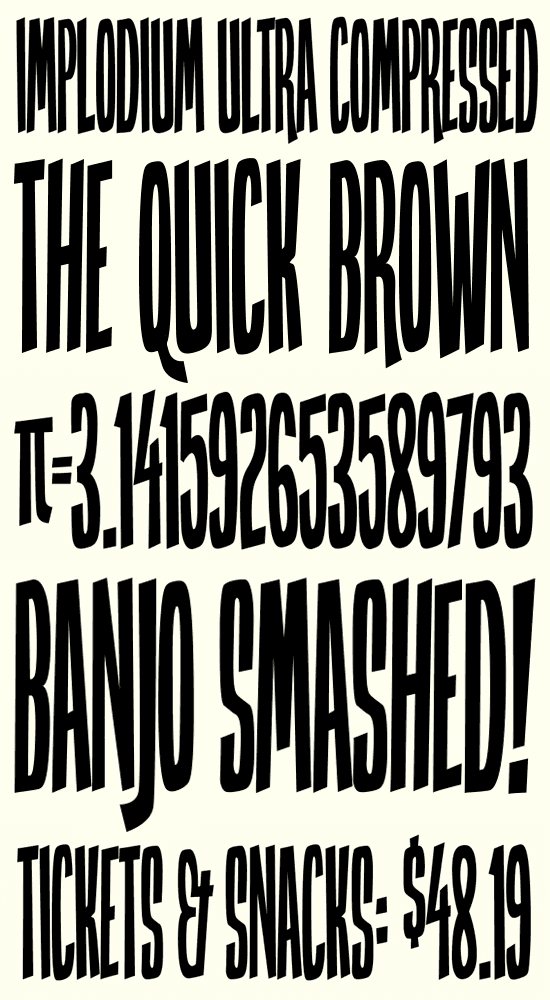
Implodium Ultra Compressed
Hey, so I've had a love for typography for years, but have just started getting into designing fonts. I bought a copy of TypeTool for Christmas and I've been itching to get started. My first font idea came from a CD cover I designed for a Christmas present this year. I wanted to have the word "SMASH" in a cartoony, ultra-condensed font that would take up the whole cover, both horizontally and vertically. I couldn't find anything out there that was compressed enough for this job, so I ended up drawing my own type for it in Illustrator. When I started thinking about designing my first font, I figured if I couldn't find anything like this, maybe there will be someone else looking for a font like this to fill a design need so I thought I'd flesh it out and see how it took. I'm quite surprised with how much I'm liking it.
However, I wanted to post it here to see what some more experienced type designers have to say. As I said, I'm a beginner, this is my first font, but I would like it to be very professional. I'm in the midst of designing all of the standard glyphs, and I'm considering putting it up for sale on MyFonts, although I'm not sure if it's of good enough quality. There's a few characters I think might need a bit of tweaking, but I thought I'd see what everyone here thinks. So, what do you all think of it? I'm eager to hear your input.
This looks pretty well designed. If you could post a pdf it would help to see how well crafted the contours are.
My only comments on this would be that the C leaves a large white space on its right side; I think the arms could extend further to even the colour out. And the M gets very cloggy and dark; perhaps you could trap the counters a bit?
Thanks! I'm linking below to a PDF that you can check out. I still have some overlapping shapes that I have to merge together, but it should give you a good idea of my contours. No idea if they're good or bad, so let me know. I know there's a few characters that are a little rough that I plan on doing a bit of tweaking on (the "S" comes to mind, and I'm not sure I like the G.). I haven't had the time to work on your suggestions for the C and the M yet, but they do make sense and sound like a very good idea. Thanks so much for the input! Here's a link to the PDF:
I think this is really good stuff and outstanding for a first font.
You may want to try making the counters extend further into the M instead of or in addition to trapping the angles. Notice how on your W the highest part of the bottom counter goes higher than the lowest part of the top counters? That prevents the situation in your M where the black goes the full width of the letter.
P looks weak to me.
I wonder if there's some unhappy tension between the asymmetry of the S, with its low spine, and the halfway structure of letters like BHE.
On some glyphs the angles you use start to take on a three-dimensional illusion that is distracting. It's mostly the characters that have a horizontal at the top or bottom - I first noticed it on the two and five, but it also happens on the 7 and E. Did you or would you think about not using the same angle that you use for the ends of the strokes on those "horizontals"?
Is the flare on the R's leg a little overdone? I'm not sure.
Wow. Thanks so much for this feedback, it's great! I did a bit of work on a few more of the characters tonight, taking most of your suggestions into account. Below is a sample of the font before the edit on top and after the edit underneath.
The characters I made edits to are the C, E (less "3D"), P, M, L (slightly thinned and less "3D"), G and R.
I really like the swashy leg on the R, personally, but it doesn't work that well with a lot of the characters. Since I'm not planning on doing the lowercase characters for this font, I thought I could use the uppercase set for swashes, so I could include both versions of the R in the font. (I'd do them as OpenType alternates but I currently only have TypeTool.)
As for the 3D look of some characters, I think I will back a few of those off a bit (I did already with the L and bottom horizontal stroke of the E) but I don't want to make them completely horizontal. I really like the slightly skewed look of the font.
So, I'll work on it some more and upload a new PDF a little later, but I wanted to show the changes and thank you both for your input. Let me know if you have any other suggestions.
Oh, and one final question about the name. First, do you think Implodium is a fitting and catchy name? No offense if you think it's stupid. Second, should it be "Ultra Compressed" or "Ultra Condensed"? Is there a difference between a compressed and condensed font?
All improvements I think, except that I too liked the descending R leg - I just wondered if it should flare (get broader in stroke width) so much as it goes down. /P/ and /M/ look great now.
/G/ is better and more fitting, but you may want to raise the crossbar (and consequently the overhanging part at the top) to make it more distinguishable from a /C/.
These are definite improvements. I prefer 'compressed' for this style, but that's not based on any reasoning at all. 'Implodium' is a cool name. I haven't had the chance to look at your pdf yet, will do though.
Two ideas. G might be less easily confused with C if you add a spur on the bottom right. The middle arm of E could be longer; it looks kind of stubby.